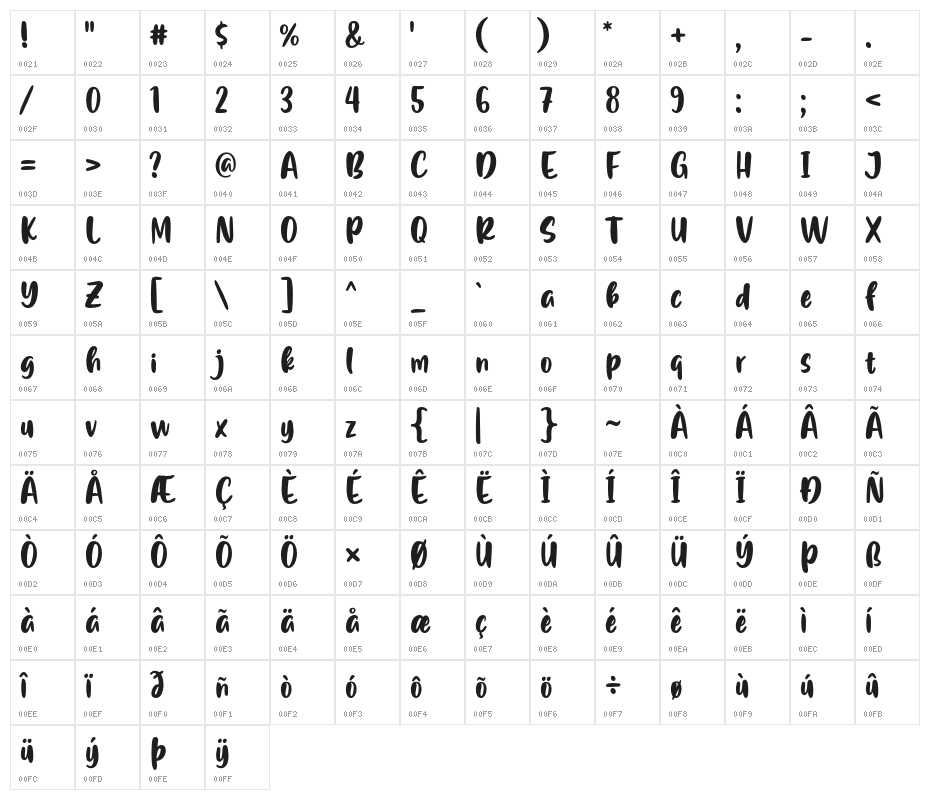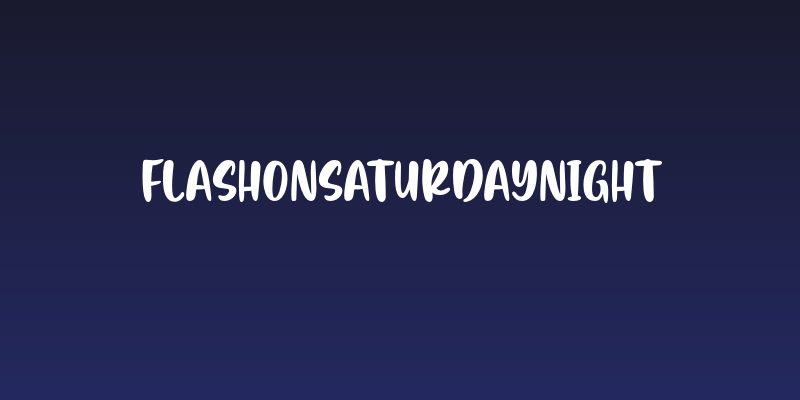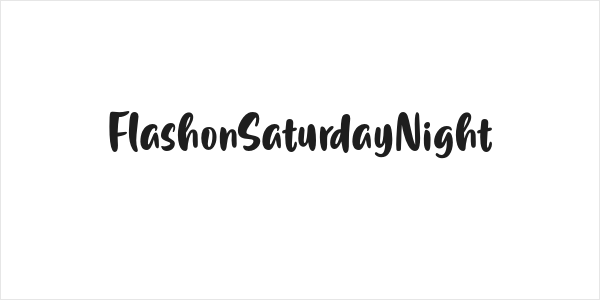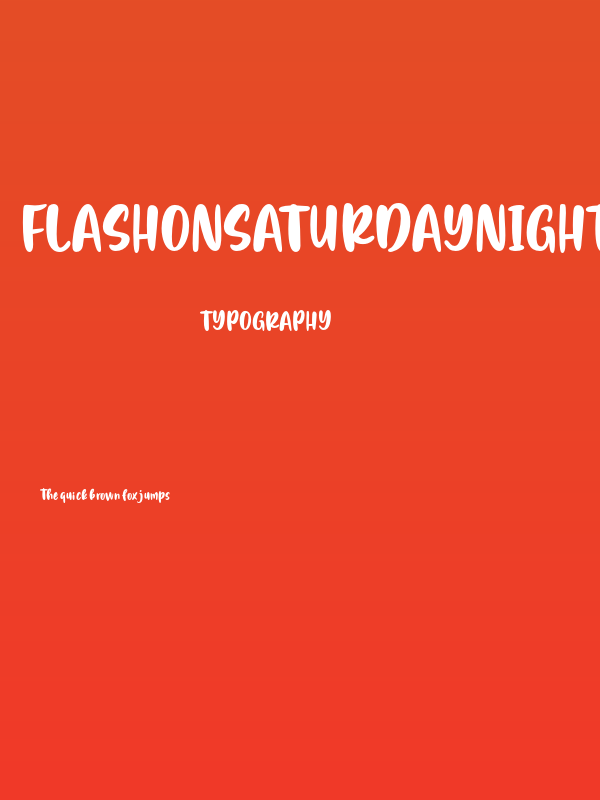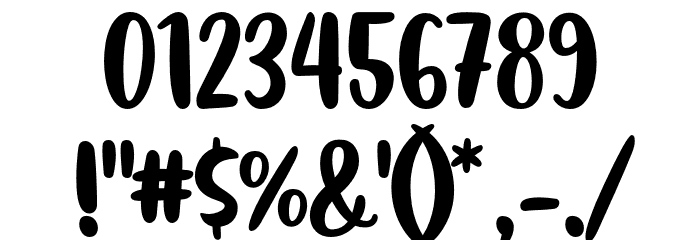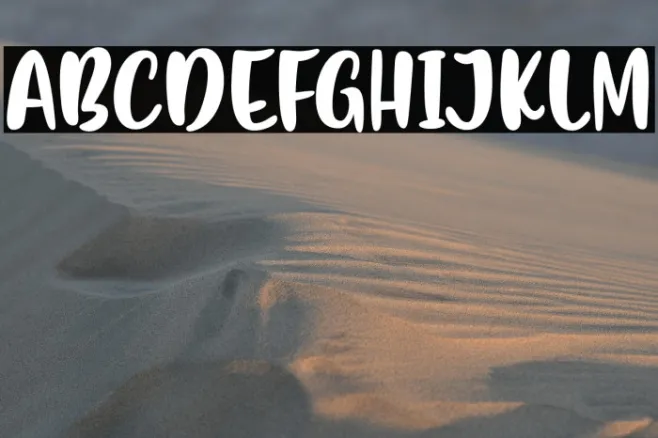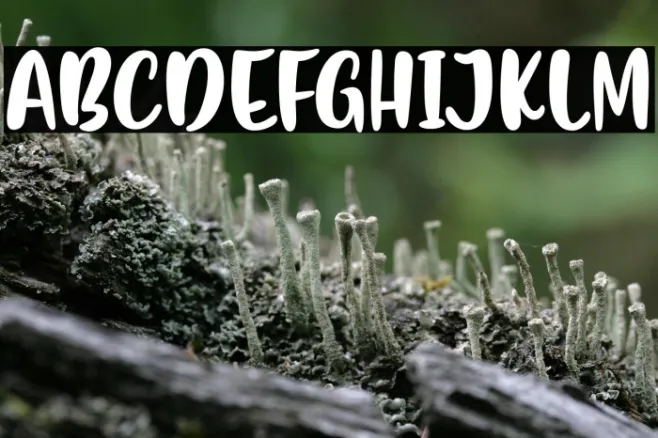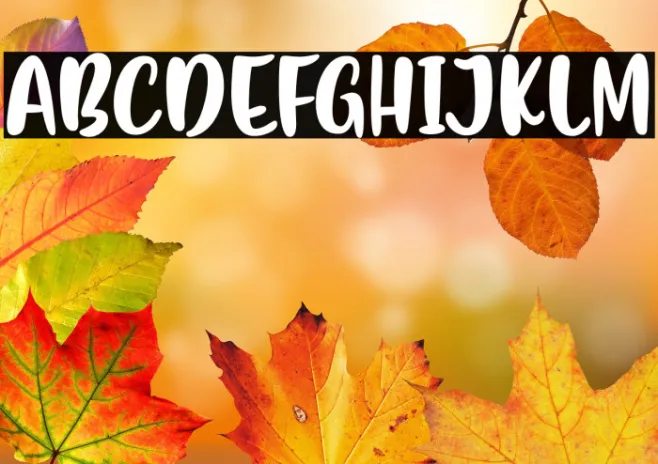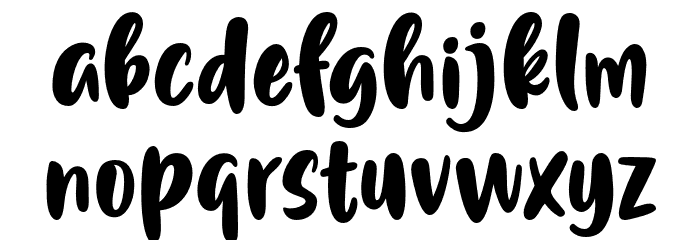
FlashonSaturdayNight Font
FlashonSaturdayNight Description
This font features a bold, playful style with a handwritten appearance. The letters are rounded and have a brush-like texture, giving them a casual and friendly feel. The uppercase and lowercase characters maintain a consistent style, with a slight slant that adds to the dynamic look. The numbers and special characters are equally bold and expressive, making them stand out. The overall design is cohesive, with a uniform stroke width that enhances readability while maintaining a lively aesthetic.